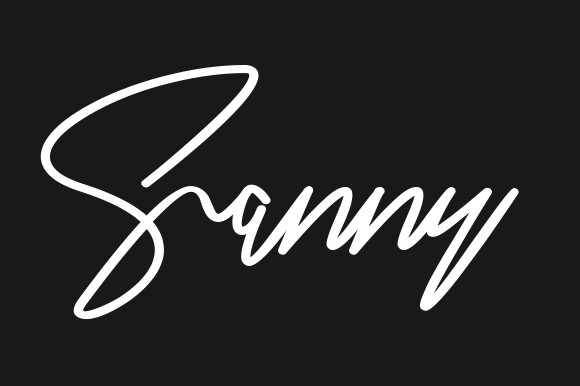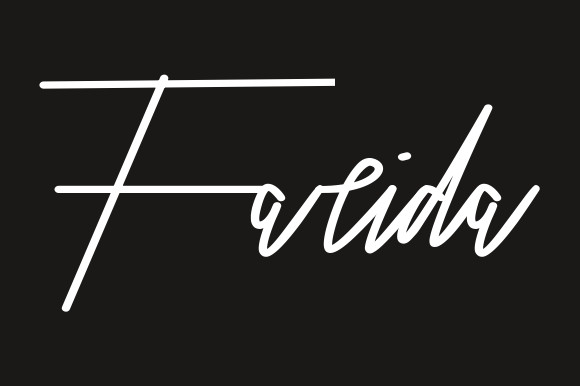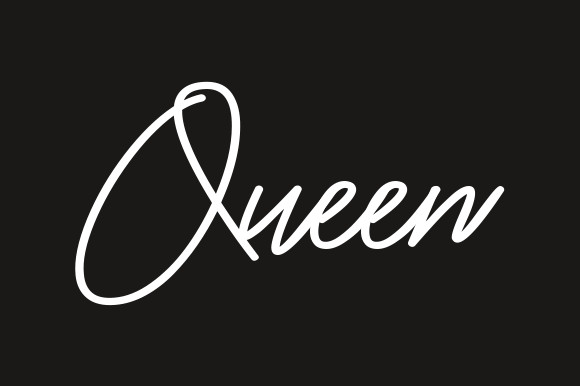
Introducing Airin Font: A Unique Monoline Signature Font
Are you tired of using the same old fonts for your designs? Look no further! Airin Font is a game-changer for designers and crafters alike. This monoline signature font is a perfect blend of handwriting and straight lines, giving it a unique look and feel that’s sure to make your designs stand out.
What is Airin Font?
Airin Font is a monoline signature font that combines the elegance of handwriting with the simplicity of straight lines. The result is a font that’s both modern and sophisticated, making it perfect for a wide range of design projects. Whether you’re working on a logo, branding materials, or social media graphics, Airin Font is sure to make a statement.
Key Features of Airin Font
- Monoline design: Airin Font features a monoline design, which means that the font is made up of single, flowing lines. This gives the font a sleek and modern look that’s perfect for designs that need to be both elegant and edgy.
- Handwritten feel: Despite its monoline design, Airin Font still has a handwritten feel that’s perfect for adding a personal touch to your designs. The font’s handwriting-inspired lines and curves give it a warm and inviting feel that’s sure to resonate with your audience.
- Straight lines: The use of straight lines in Airin Font adds a level of sophistication and elegance to the font. This makes it perfect for designs that need to be both modern and professional.
- Unique look and feel: The combination of handwriting and straight lines in Airin Font gives it a unique look and feel that’s sure to set it apart from other fonts. Whether you’re working on a design project or just want to add a personal touch to your social media graphics, Airin Font is the perfect choice.
Uses for Airin Font
Airin Font is a versatile font that can be used for a wide range of design projects. Here are just a few ideas to get you started:
- Logo design: Airin Font is perfect for creating unique and memorable logos that will help your brand stand out.
- Branding materials: Use Airin Font to create professional-looking branding materials, such as business cards, letterheads, and brochures.
- Social media graphics: Add a personal touch to your social media graphics with Airin Font. Whether you’re creating graphics for Instagram, Facebook, or Twitter, Airin Font is sure to make your designs stand out.
- Invitations and announcements: Airin Font is perfect for creating beautiful and elegant invitations and announcements.
Tips for Using Airin Font
Here are a few tips for getting the most out of Airin Font:
- Experiment with different colors: Airin Font looks great in a wide range of colors, so don’t be afraid to experiment and find the perfect color for your design.
- Use it with other fonts: Airin Font pairs well with a wide range of other fonts, so feel free to get creative and experiment with different font combinations.
- Pay attention to spacing: Make sure to pay attention to the spacing between letters and words when using Airin Font. This will help ensure that your design looks clean and professional.
Airin Font is a unique and versatile monoline signature font that’s perfect for designers and crafters alike. Its combination of handwriting and straight lines gives it a unique look and feel that’s sure to make your designs stand out. Whether you’re working on a logo, branding materials, or social media graphics, Airin Font is the perfect choice. So why wait? Download Airin Font today and start creating stunning designs that will leave a lasting impression!